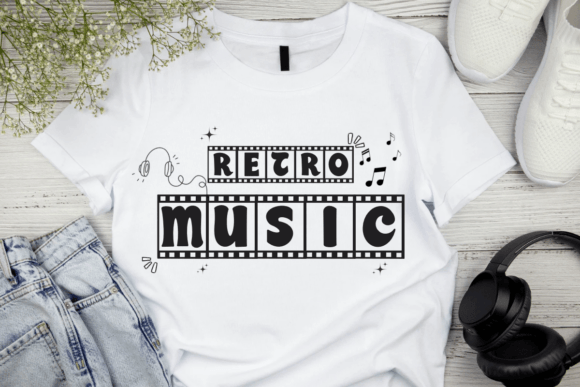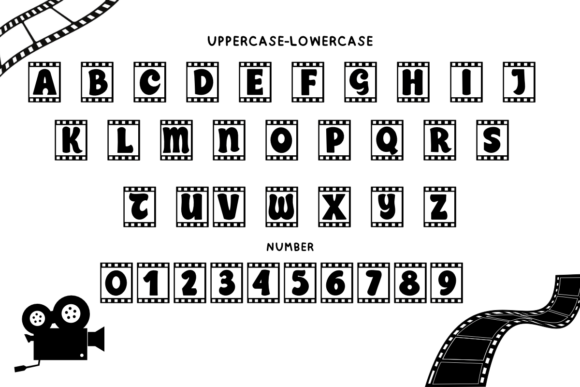
Vintage Retro Movie Font
Vintage Retro Movie is a decorative font. You can use it for taking notes, writing a diary, or making greeting cards. However, you can still use it for other designs, such as banners, content, mugs, cards, shirts, stationery, social media posts, and more!